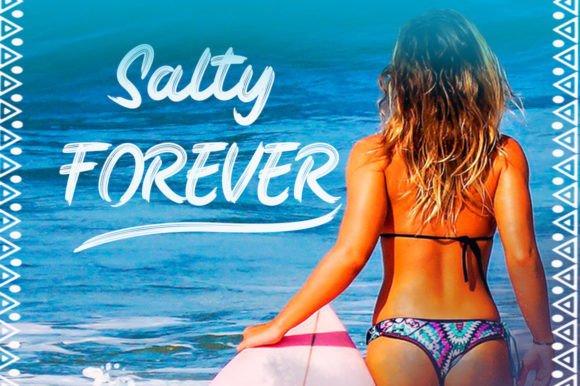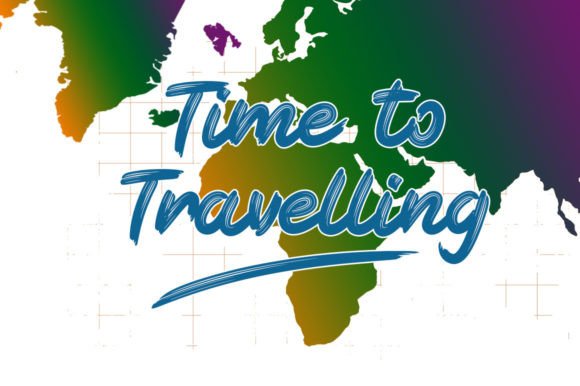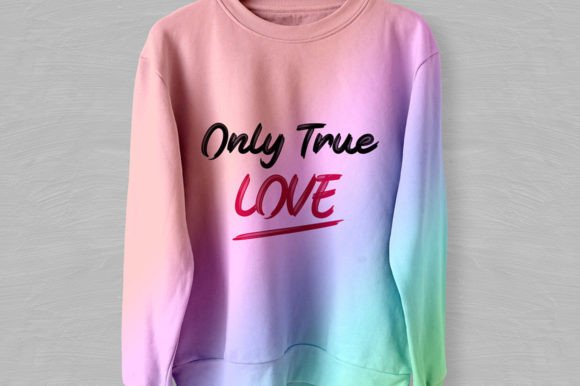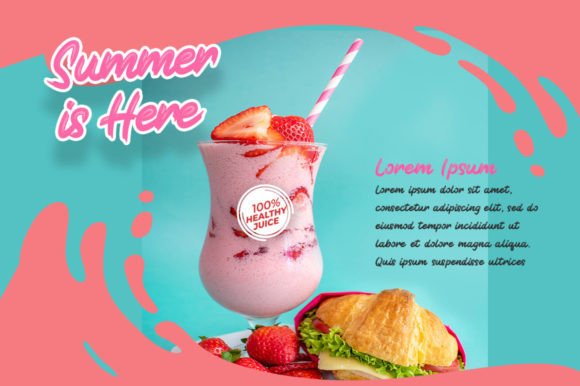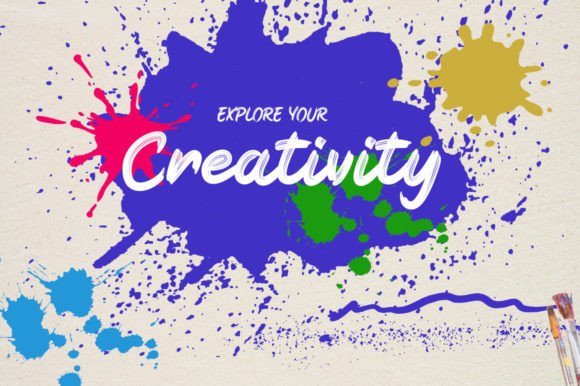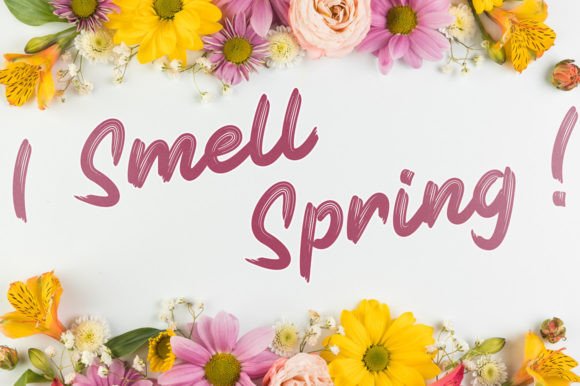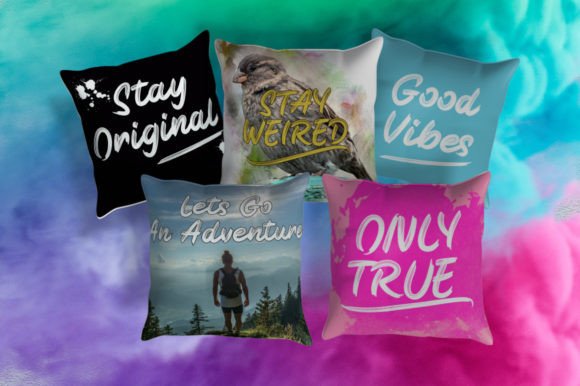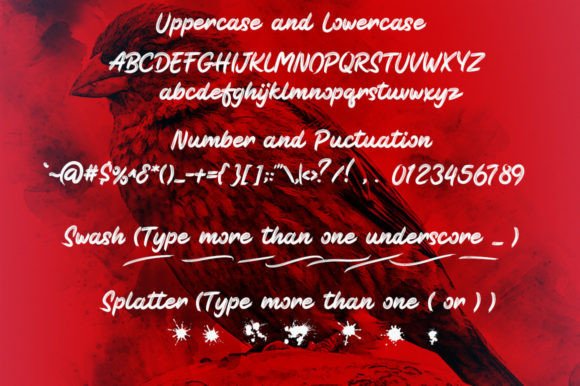
Black Sparrow Font
About Black Sparrow Font
Black Sparrow is a freestyle handwritten brush font that exudes a street urban style, youthful theme, and a sporty, masculine accent. This font is perfect for a diverse range of applications, including displays, titles, logos, packaging, crafts, labels, T-shirts, hoodies, tote bags, posters, stickers, quotes, and any advertising that demands energetic typography.
The freestyle brush strokes of Black Sparrow give it a dynamic and edgy quality, making it ideal for projects targeting a youthful and energetic audience. Whether you’re working on digital or print media, this font is crafted to add a sense of urban coolness to your designs.
Imagine Black Sparrow adorning T-shirts and hoodies, creating a sporty and stylish look. Picture it making a bold statement on packaging, labels, or posters, where its energetic typography adds impact and grabs attention. Whether used for branding or promotional materials, Black Sparrow stands out with its distinctive and vibrant style.
The sporty and masculine accent of Black Sparrow makes it a go-to choice for projects that require a bold and dynamic typeface. Its freestyle brush design adds an authentic and urban feel, making it a versatile font for a variety of creative applications.
In summary, Black Sparrow is more than just a font; it’s a creative asset designed to bring energy and style to your projects. Let it be the choice that adds a street-smart and youthful vibe, making your designs stand out with an edgy and dynamic typography.